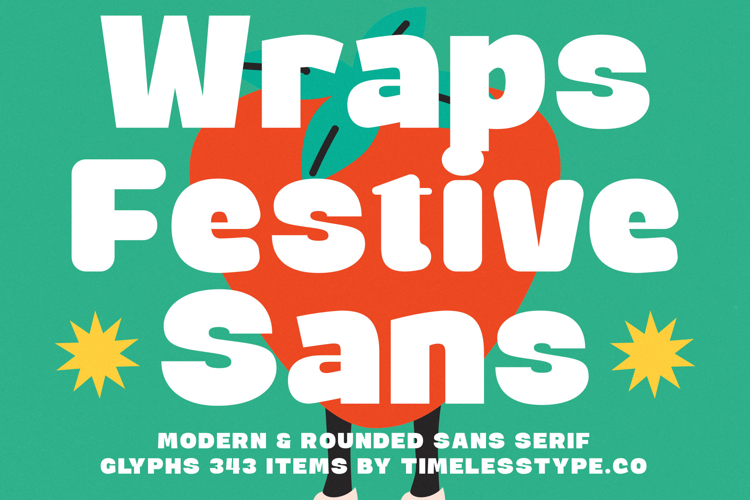
Wraps Festive - Modern Rounded Sans Serif
Wraps Festive - Modern Rounded Sans Serif Font
Discover the ultimate expression of modern design with Font Wraps Festive - Modern Rounded Sans Serif Font Sans Serif. This exceptional typeface blends playful elegance with undeniable presence, featuring a bold, rounded sans serif aesthetic that instantly commands attention. Its soft, approachable curves and clean lines ensure a friendly yet highly professional appeal, perfect for projects demanding both warmth and strong visual impact.
Crafted for maximum readability and visual charm, Font Wraps Festive - Modern Rounded Sans Serif Font Sans Serif excels in a myriad of design contexts. It’s absolutely perfect for impactful branding, captivating headlines, product packaging, and memorable brand identity creation. Its robust character makes it an outstanding choice for editorial design, digital interfaces, and any application where clarity meets a distinctive, contemporary style.
Unleash your creativity without boundaries. With its extensive multilingual support, Font Wraps Festive - Modern Rounded Sans Serif Font Sans Serif adapts seamlessly across global markets, making it incredibly versatile for international projects. This feature ensures your message resonates with a wider audience, maintaining its unique charm and professional integrity no matter the language. Its comprehensive glyph set offers unparalleled flexibility.
Embrace the power of distinctive typography to elevate your next project. Font Wraps Festive - Modern Rounded Sans Serif Font Sans Serif is more than just a font; it’s a strategic asset for designers seeking to infuse their work with an inviting, modern, and unforgettable character. Choose this typeface to create designs that are not only seen but truly felt, leaving a lasting impression on your audience.